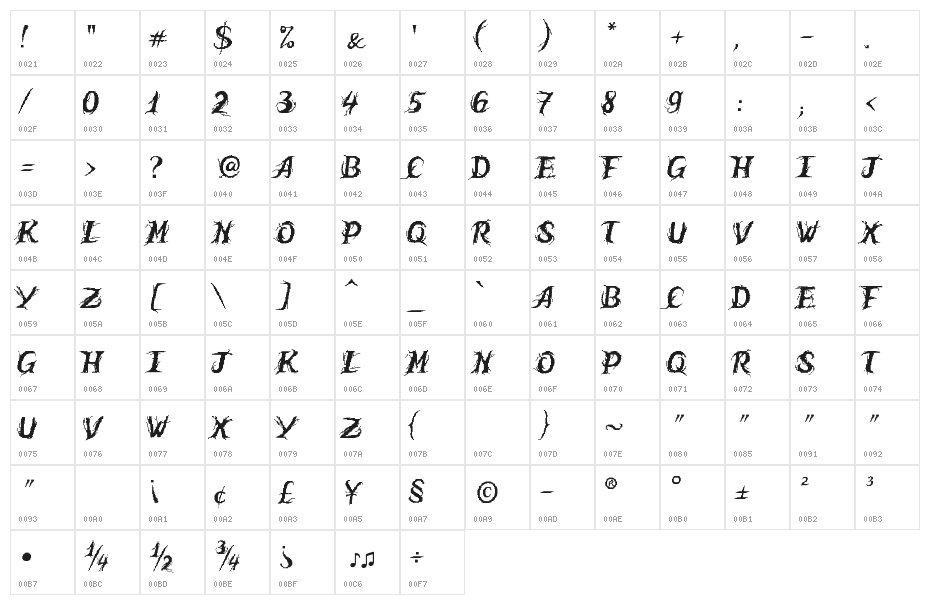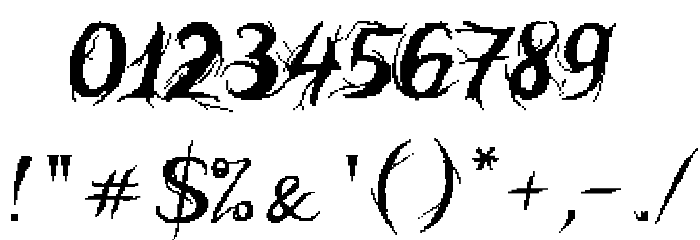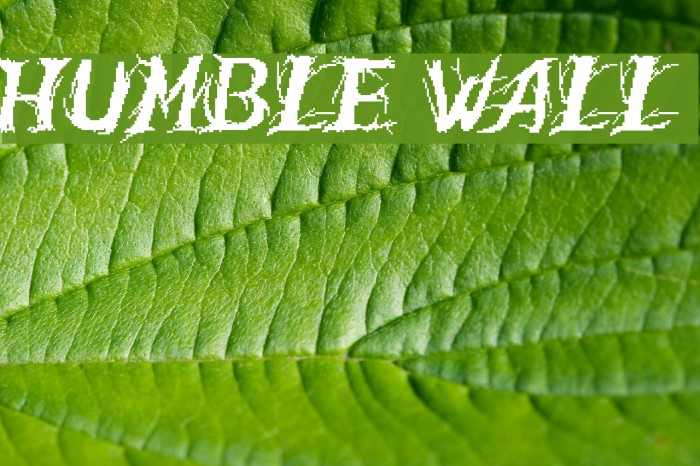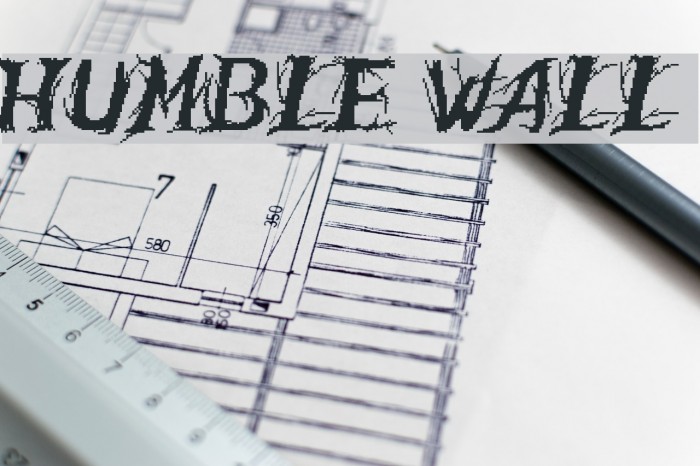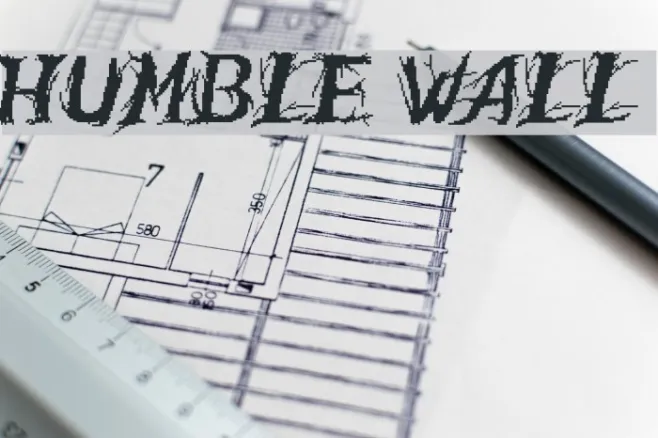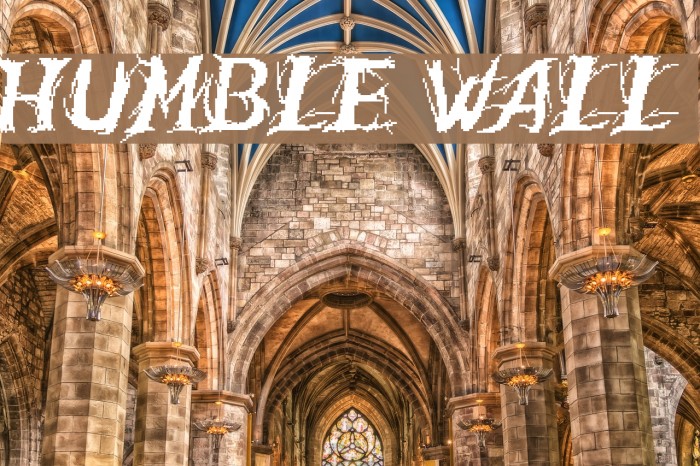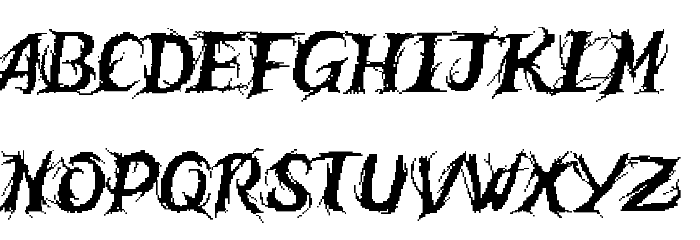
Humble Wall Font
This font features a bold and dynamic style with sharp, jagged edges that give it a rugged and intense appearance. The letters are designed with a brush-like texture, creating a sense of movement and energy. The uppercase and lowercase characters maintain a consistent style, with each letter exhibiting unique, irregular strokes that add to the overall chaotic aesthetic. Numbers and special characters follow the same design principles, ensuring a cohesive look across all elements. This font is ideal for projects that require a strong, impactful visual presence.
| Proposed Projects | Perfect for album covers, posters, and branding that require a bold, edgy look. |